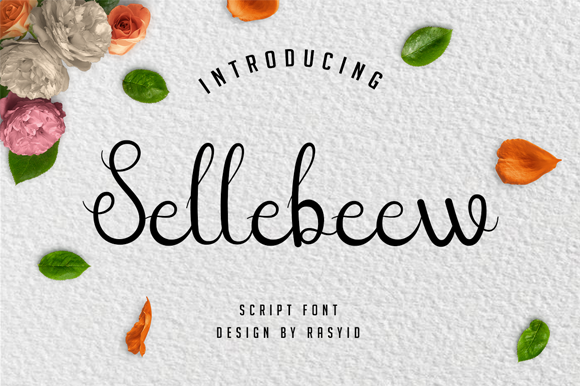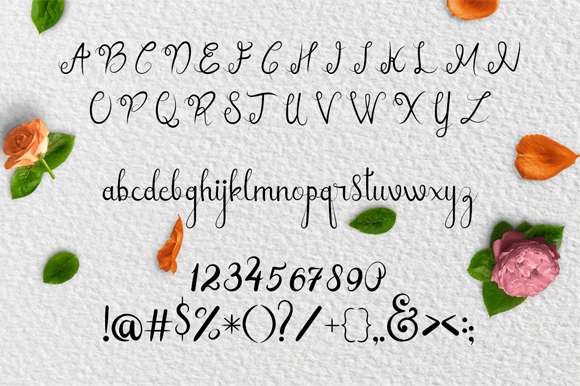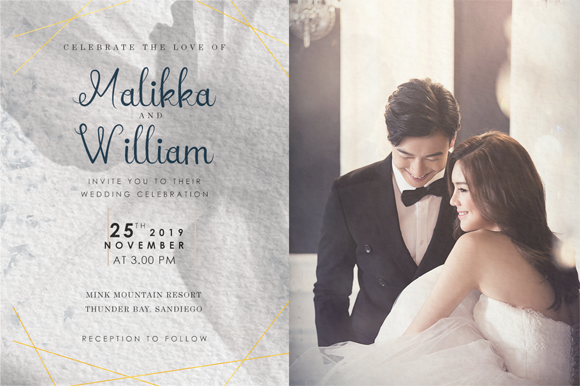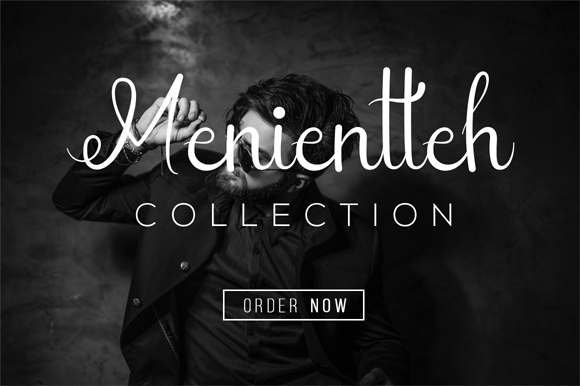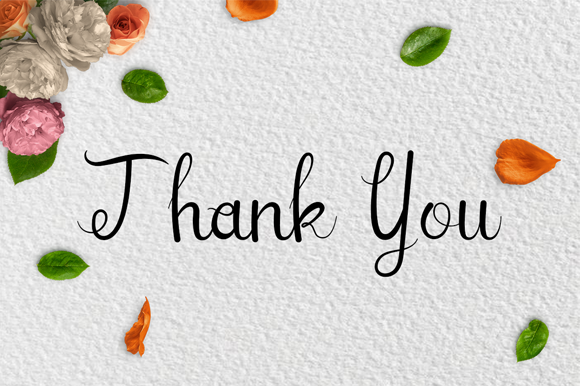
Sellebeew Font
About Sellebeew Font
Sellebeew is elegant script font which can be used for various purposes such as: lettering, wedding cards and much more!